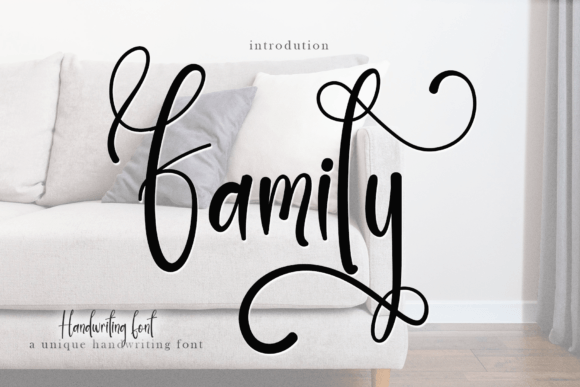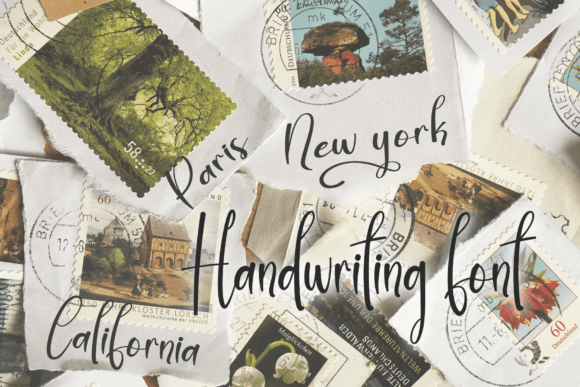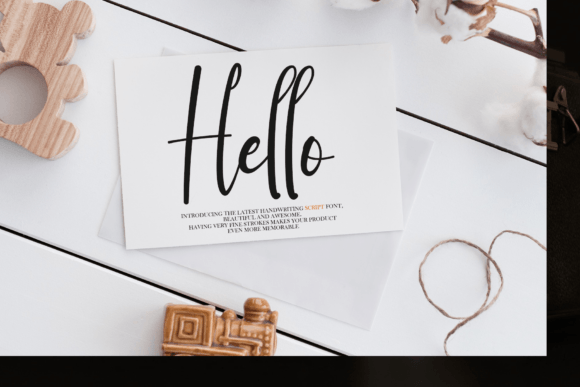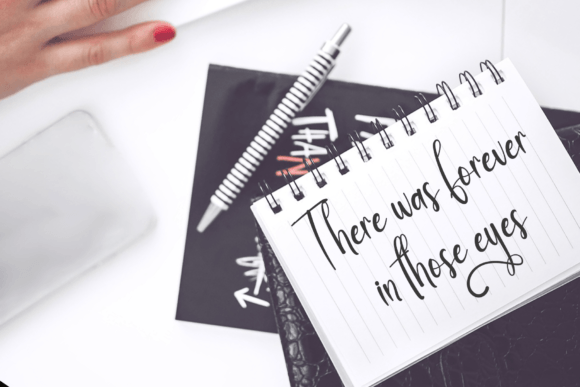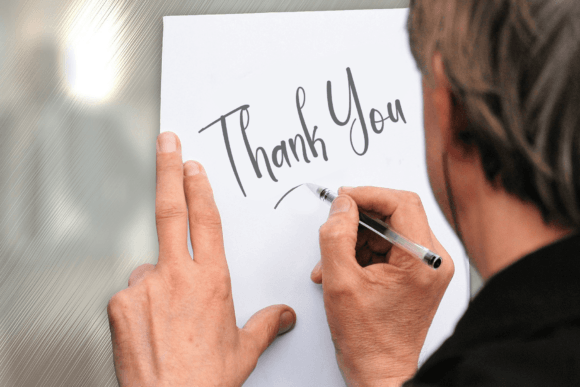
Family Font
About Family Font
“Family” is not just a font; it’s a sweet, romantic, and beautiful script typeface that brings a touch of elegance to every letter. With its beautiful curves, “Family” is designed to infuse a chic and sophisticated vibe into any item or project.
Imagine the graceful lines of “Family” gracefully adorning wedding invitations, greeting cards, or any design that calls for a romantic and charming aesthetic. This script font is more than just letters; it’s an expression of style and emotion.
Let “Family” be the artistic element that transforms your creative projects into something truly enchanting. Its romantic and beautiful design is perfect for adding a chic touch to various items, making it versatile for a range of applications.
Incorporate “Family” into your designs, and watch as it effortlessly elevates the visual appeal, making your creations stand out with an extra layer of sophistication. This font is not just a tool; it’s a design companion that enhances the overall aesthetic of your work.
Whether you’re working on branding materials, logo designs, or any project that requires a touch of romance, “Family” is the script font that brings a sense of sweetness and beauty. Its curves are not just letters; they are strokes of artistic expression.
For those moments when you want your designs to convey warmth, charm, and a romantic allure, turn to “Family” as the font that understands the language of elegance. It becomes a seamless part of your creative process, allowing you to craft visually captivating pieces effortlessly.
Let “Family” be the bridge between your creativity and the visual storytelling you want to achieve. With its sweet, romantic, and beautiful script, it becomes a testament to the idea that fonts aren’t just tools; they are companions in the journey of creating something truly special.